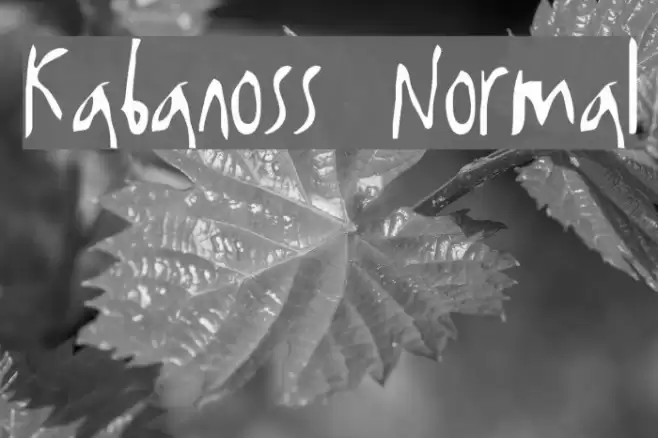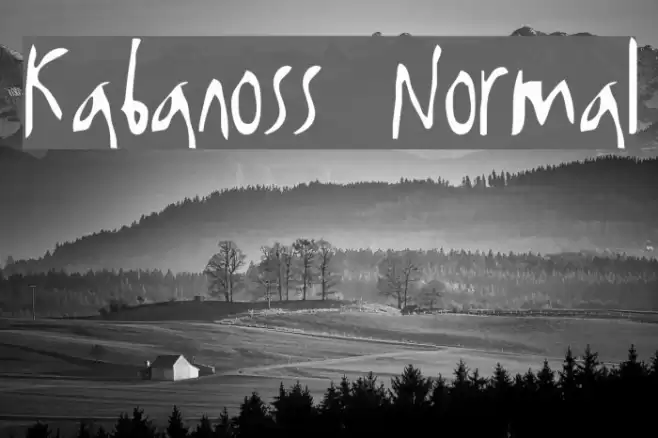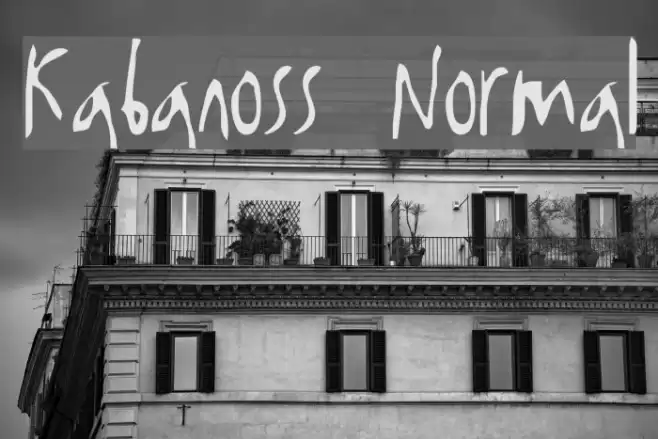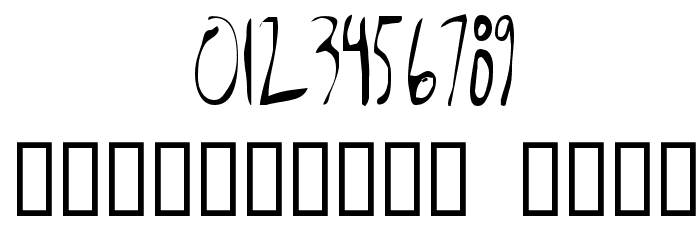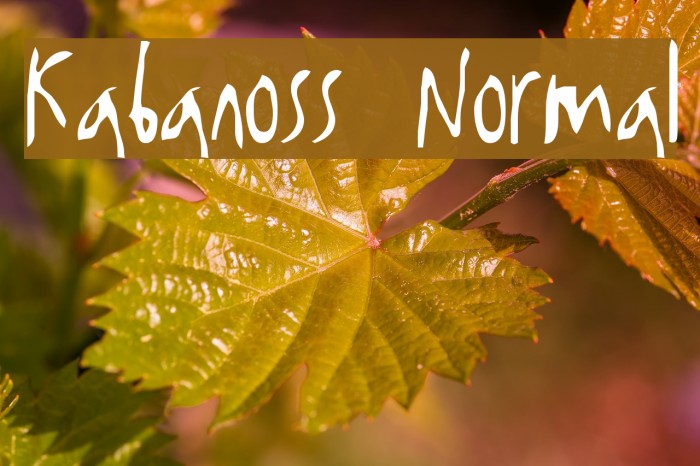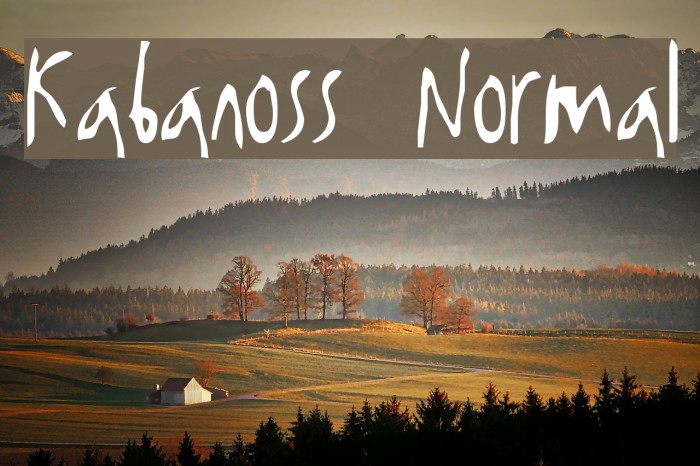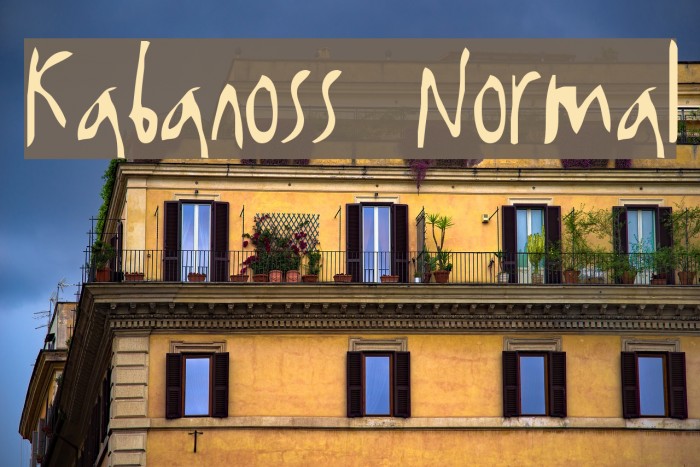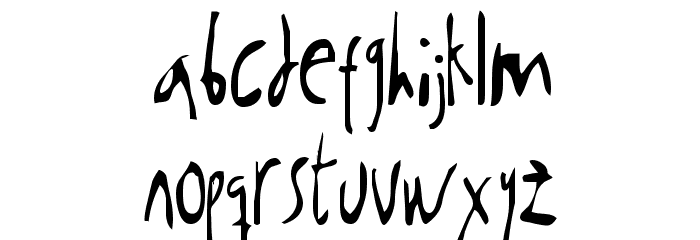
Kabanoss Normal Font
Kabanoss Normal Description
This font features a playful and dynamic handwritten style, characterized by its irregular and organic letterforms. The uppercase letters exhibit a lively and spontaneous appearance, with varying stroke widths that add to its informal charm. The lowercase letters maintain this energetic feel, with some characters displaying unique loops and curves. The numerals are consistent with the overall style, offering a quirky and approachable look. This font is ideal for projects that require a personal touch or a casual, friendly vibe.
A playful, handwritten font with dynamic and irregular letterforms from Quirky fonts.
- Proposed Projects: Great for greeting cards, children's books, casual branding, and social media graphics.
- Overall Style: Casual, Playful
- Use Case: Headlines, Informal text, Creative projects